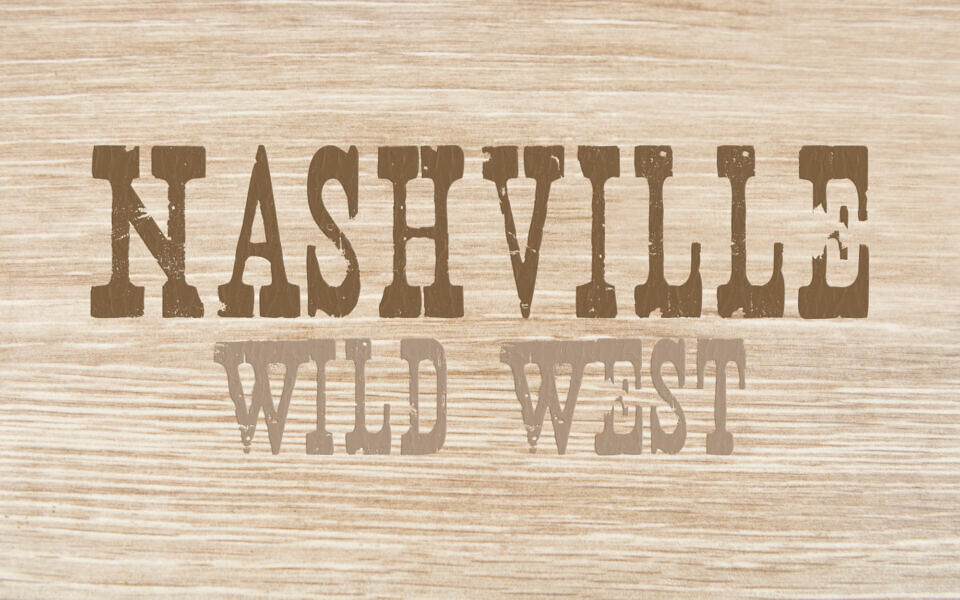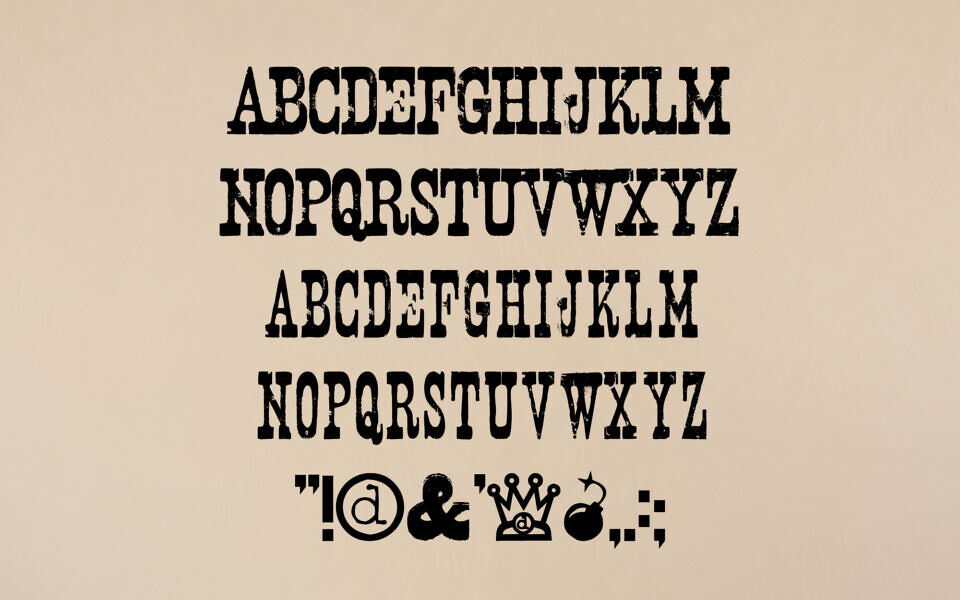
Nashville is a bold, distressed Western-style font created by Disturbed Type. Featuring rough, textured letterforms and a rugged vintage aesthetic, it captures the spirit of old saloon signage and classic Americana design.
Its strong, eye-catching characters make it ideal for posters, logos, branding, and retro-themed projects. With a worn, rustic look, Nashville adds personality and authenticity to designs that aim for a nostalgic or Wild West-inspired feel.